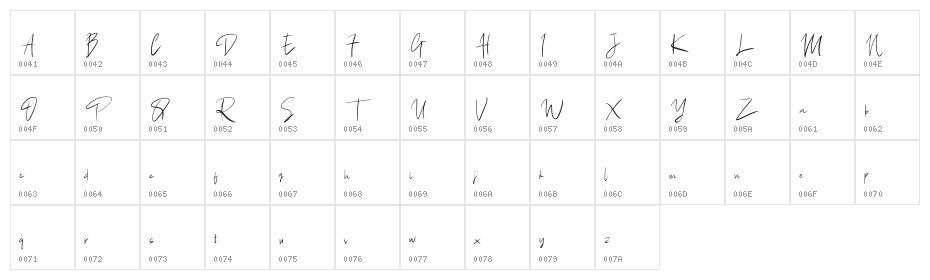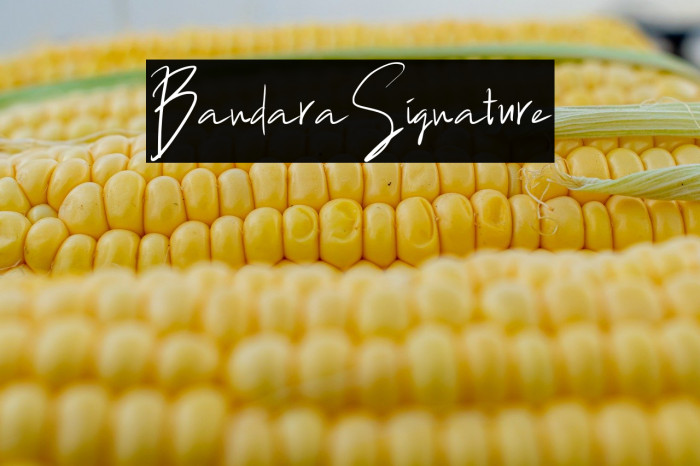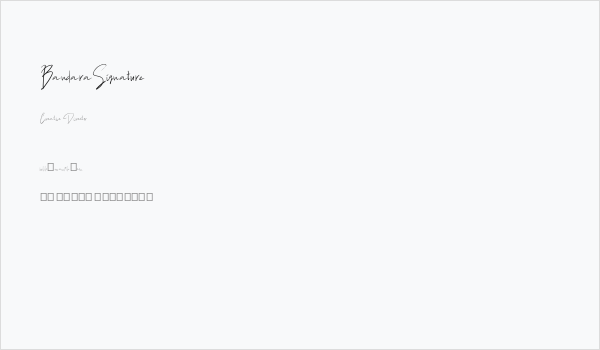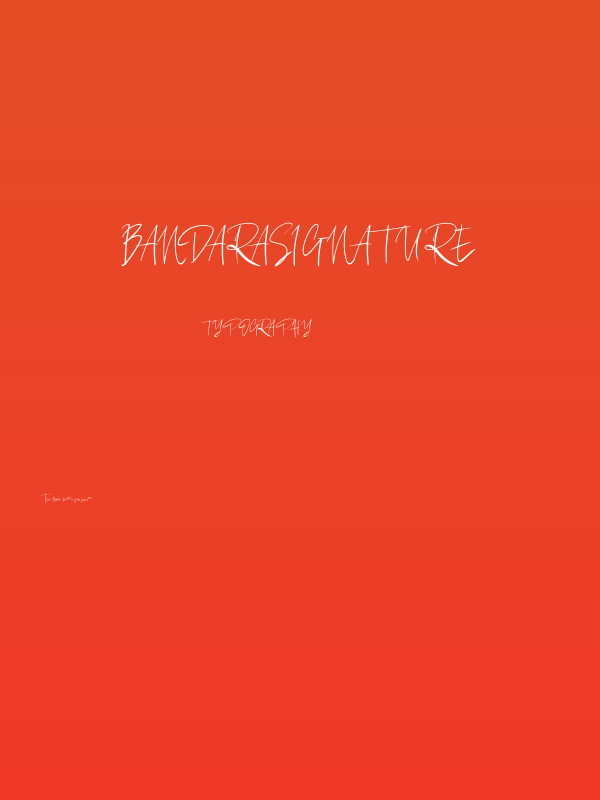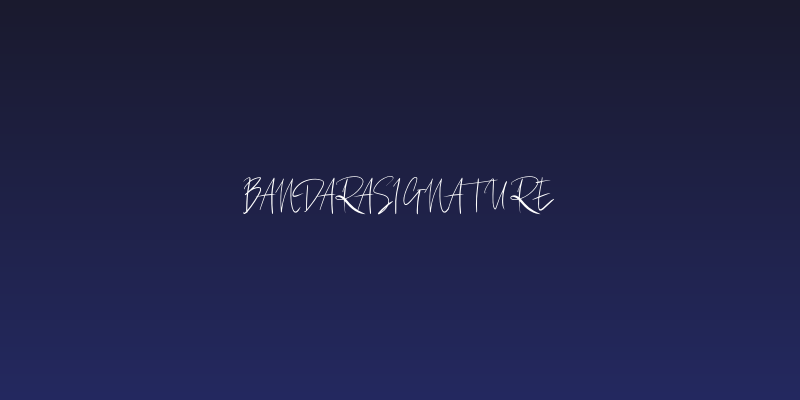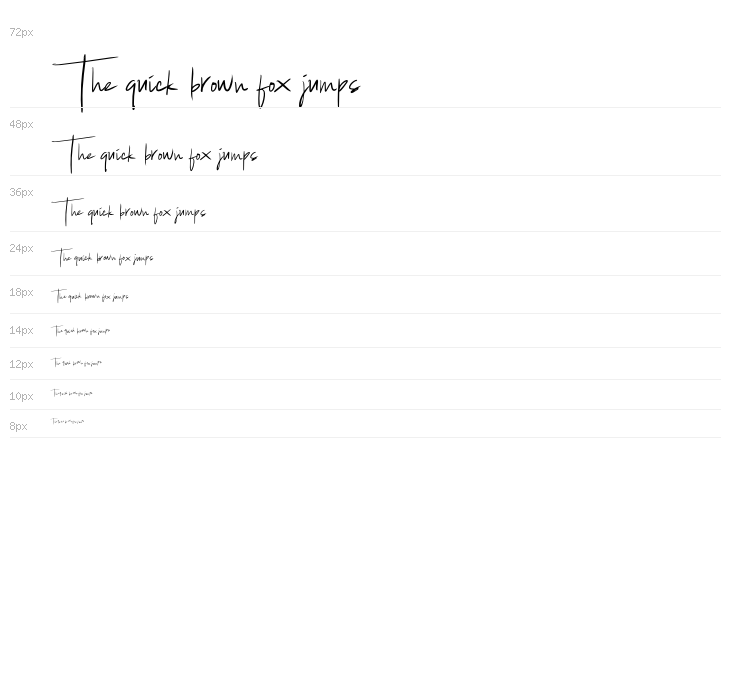
BandaraSignature Font
BandaraSignature Description
This font exudes a sense of elegance and fluidity, characterized by its cursive, handwritten style. The letters are crafted with a natural flow, featuring varying stroke thickness that adds a dynamic and lively feel. The uppercase letters are bold and prominent, while the lowercase letters maintain a consistent, smooth appearance. The overall design is reminiscent of a personal signature, making it ideal for projects that require a touch of sophistication and individuality. The font's unique style is perfect for creative applications where a personal touch is desired.
| Overall Style | Elegant, Personal, Artistic |
| Proposed Projects | Ideal for wedding invitations, personal branding, logo design, and artistic projects. |